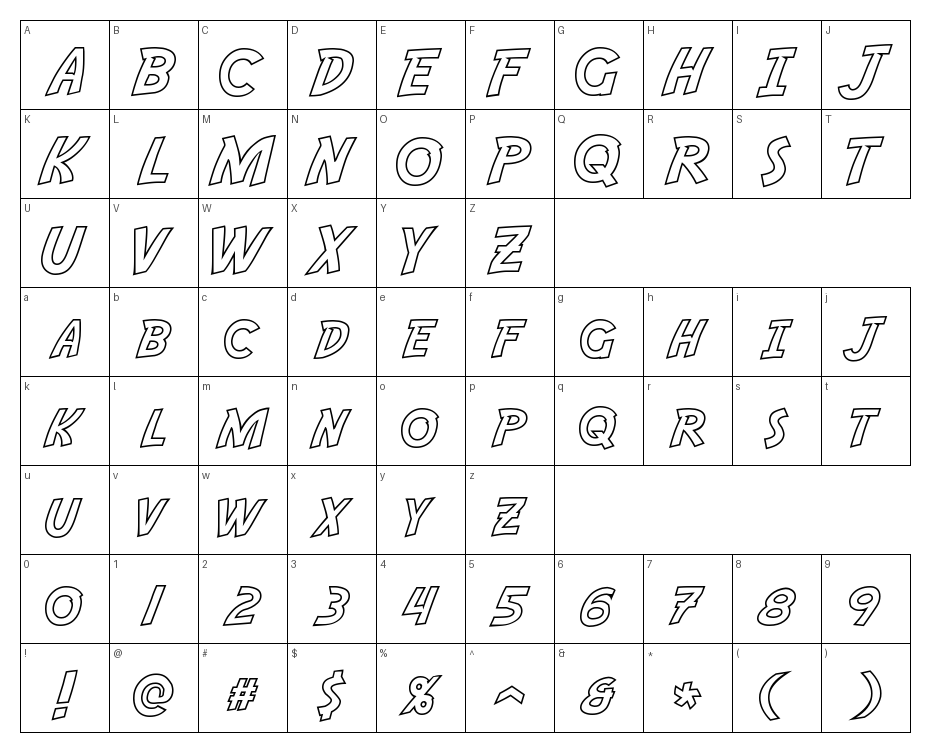
Adventure is a pulpy, decorative font is based on the main logo of the Indiana Jones (Raiders of the Lost Ark) franchise. Includes outlines version.
Font Name: Adventure
Designer Name: Pixel Sagas